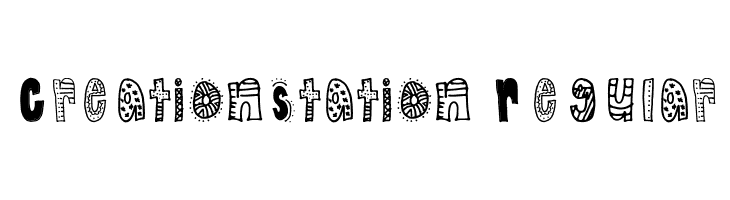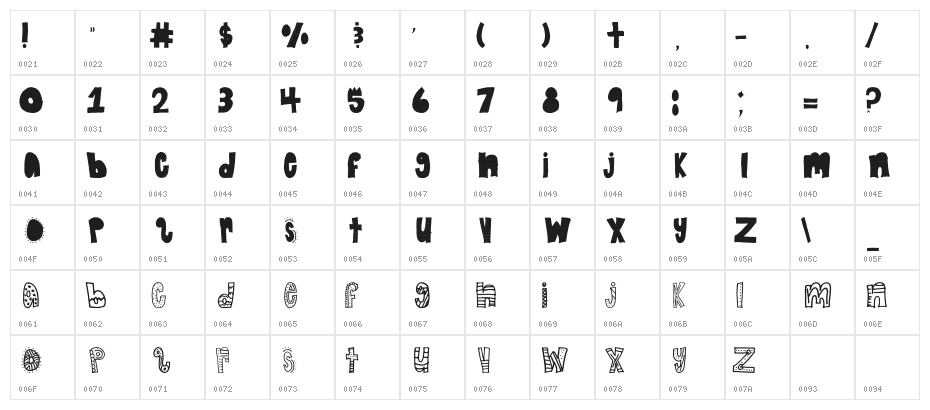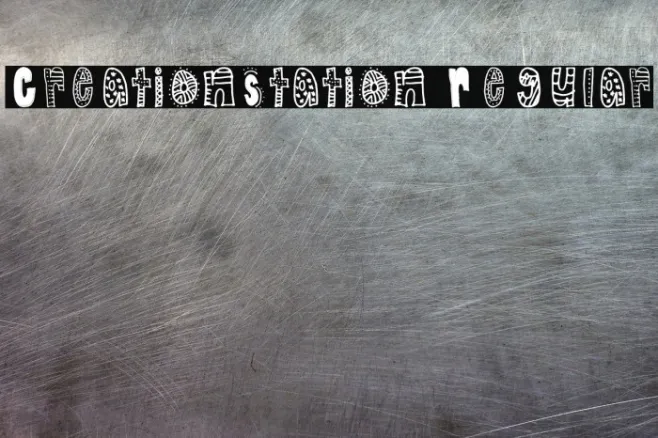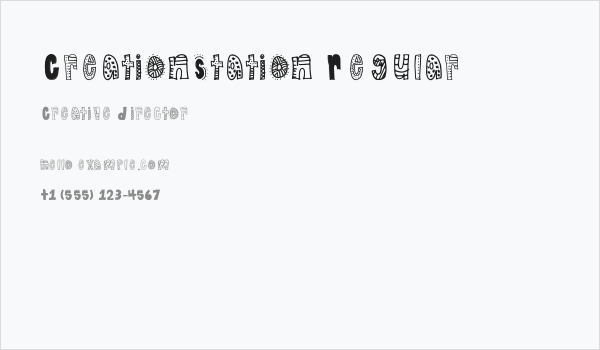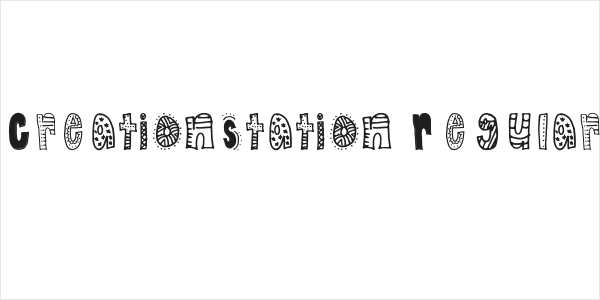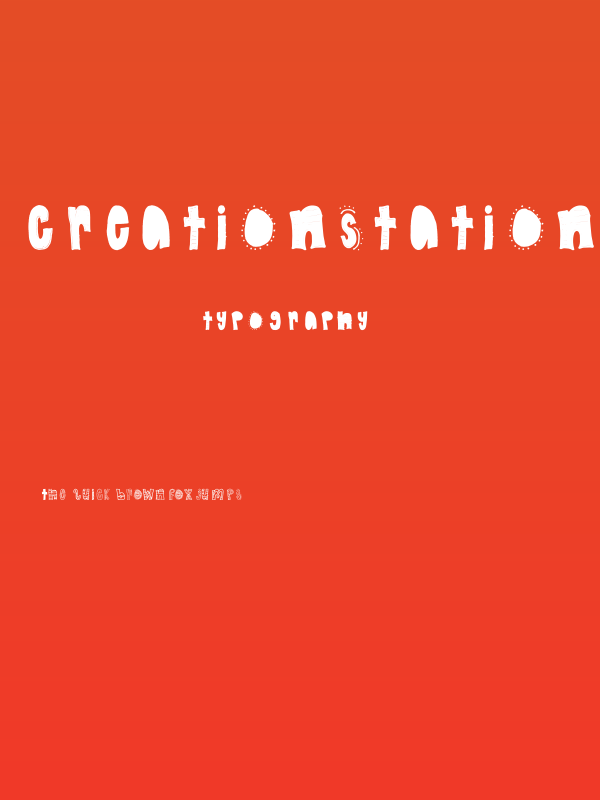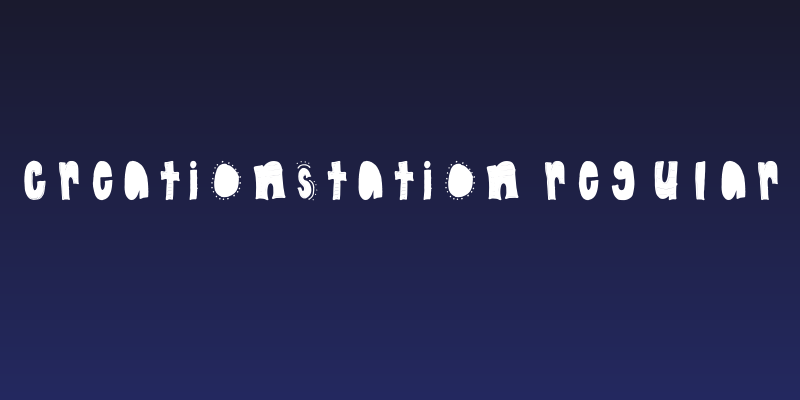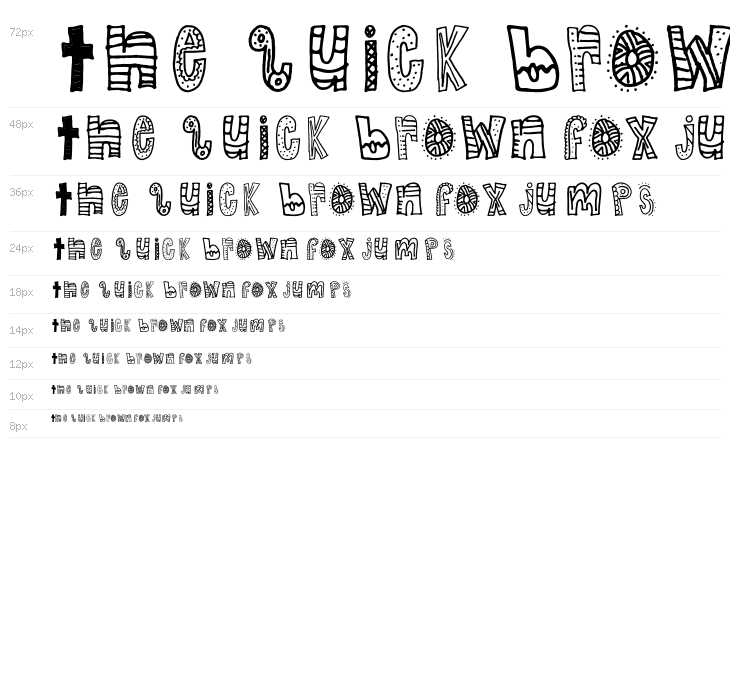
CreationStation Regular Font
CreationStation Regular Description
This playful and whimsical font features a variety of unique and quirky letterforms, each with its own distinct personality. The uppercase and lowercase letters are characterized by bold, uneven strokes and creative embellishments, such as dots, stripes, and patterns. The numbers and special characters continue this theme, offering a fun and dynamic appearance. The overall design is reminiscent of hand-drawn or doodle art, making it ideal for projects that require a lively and informal touch.
| Overall Style | Whimsical, Creative |
| Use Case | Headlines, Posters, Creative Projects |
| Proposed Projects | Perfect for children's books, playful branding, creative posters, and DIY crafts. |